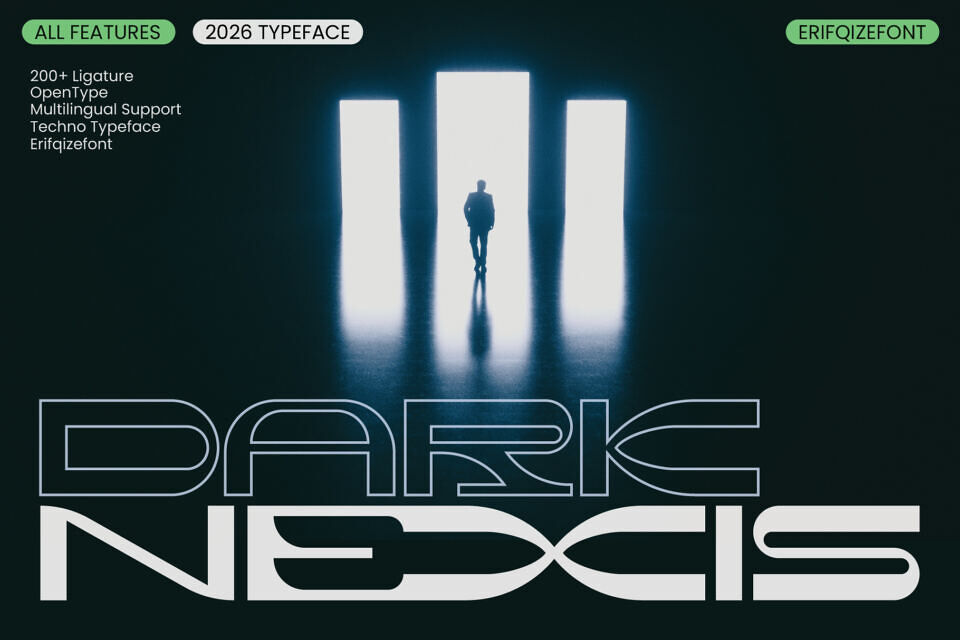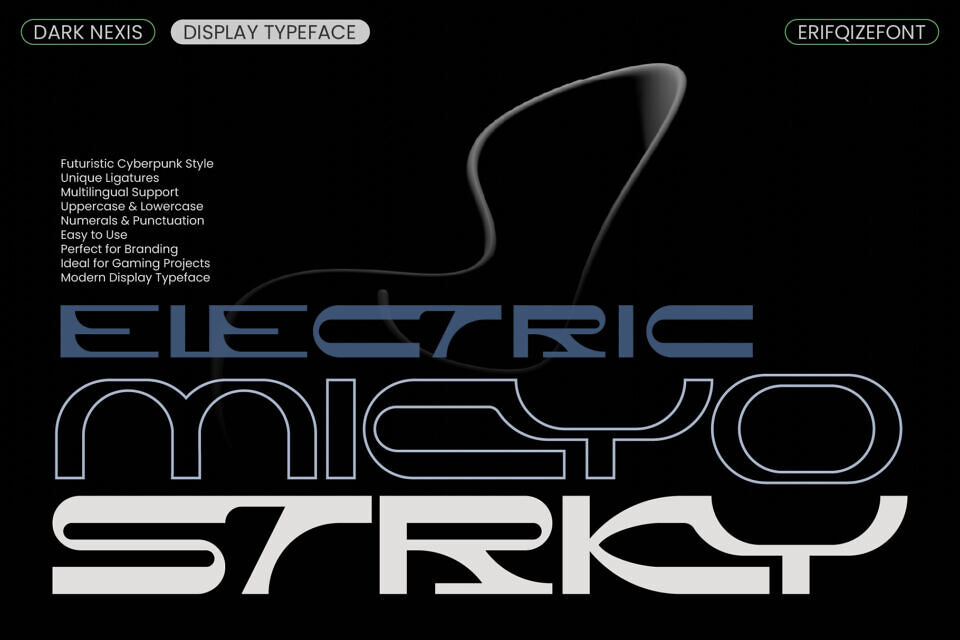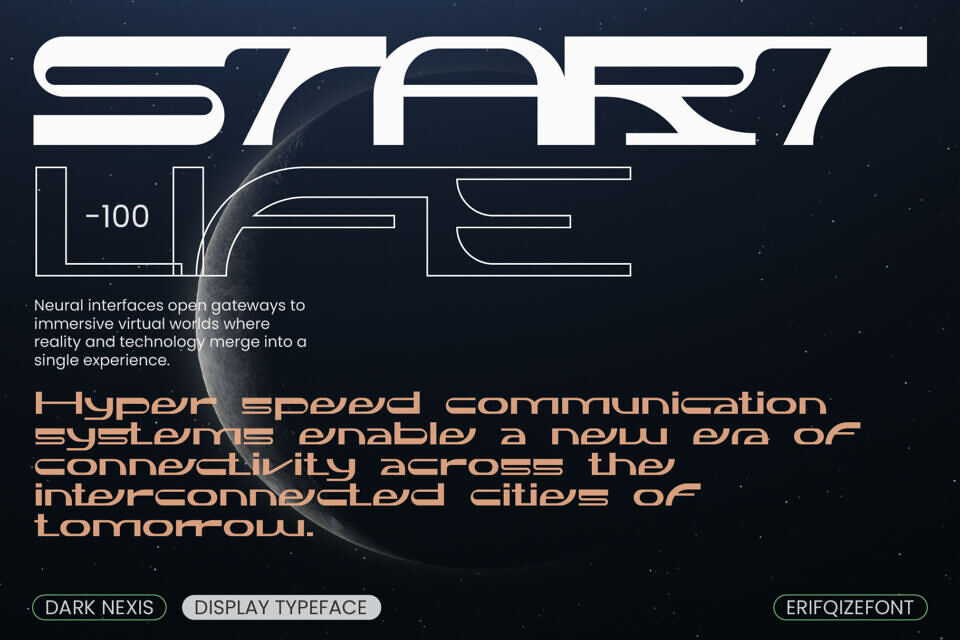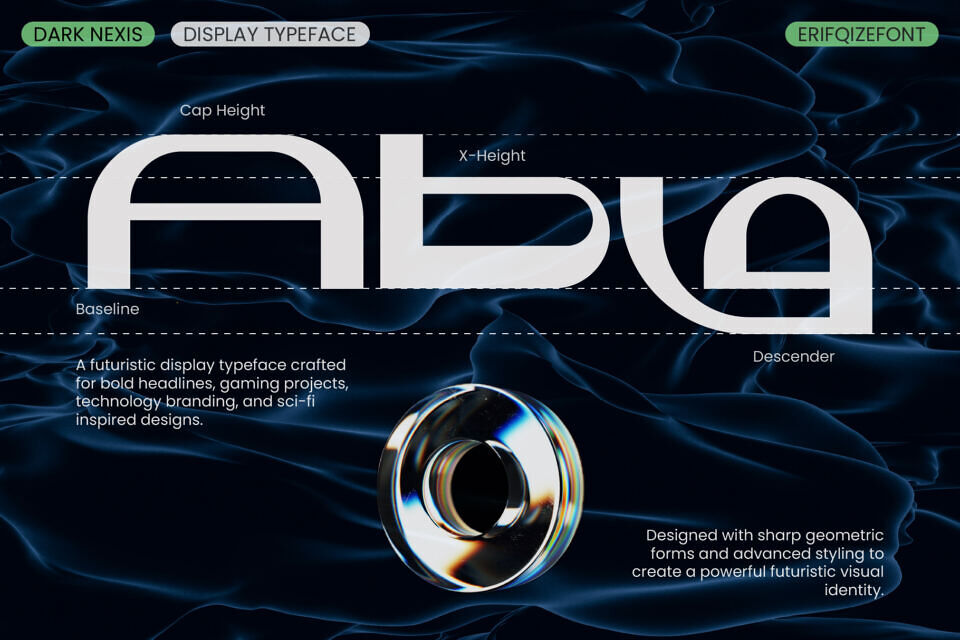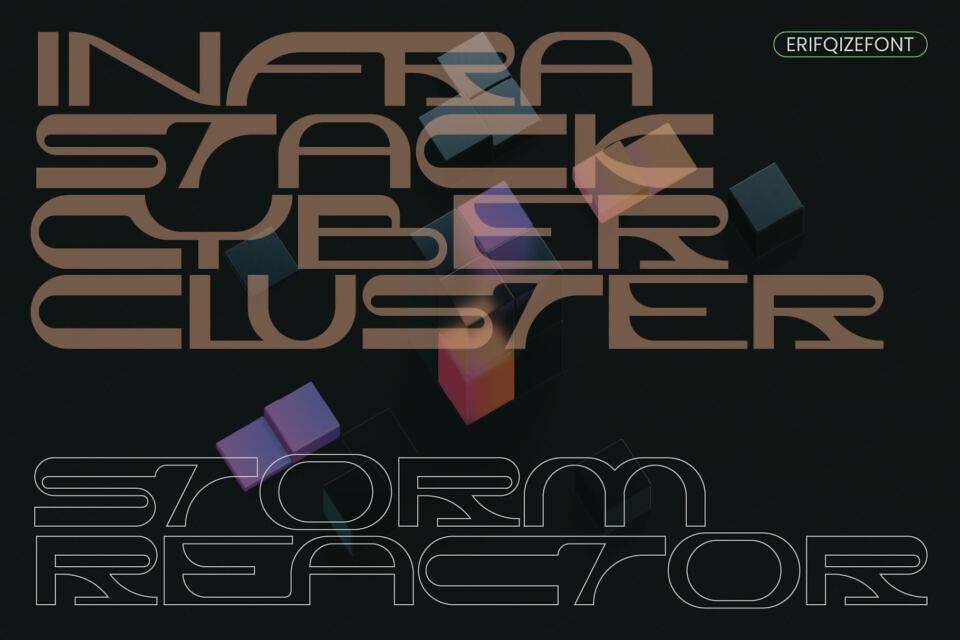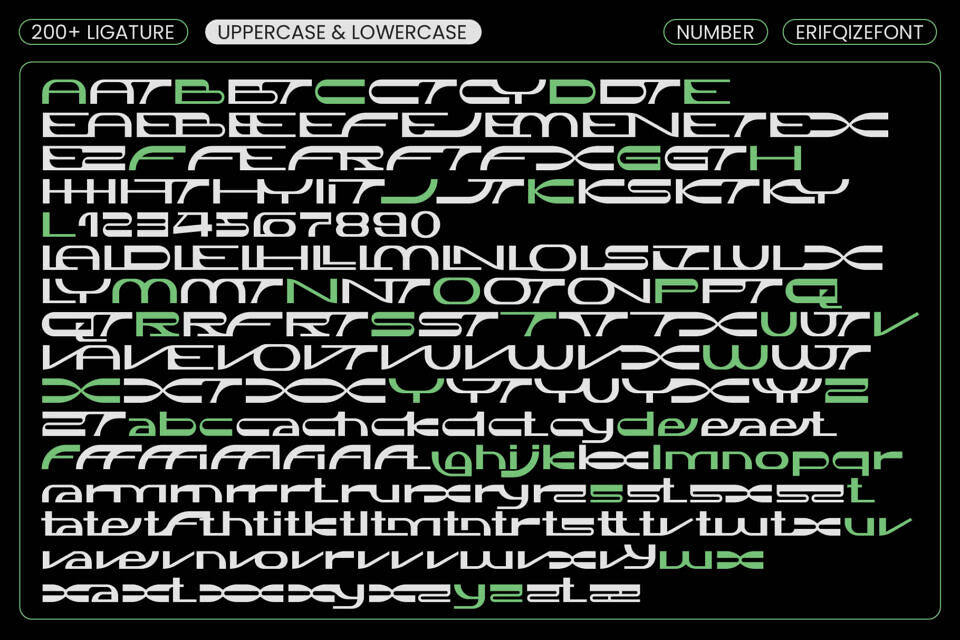
Introducing Dark Nexis, a cutting-edge font designed to push your creative boundaries and bring your visuals straight into tomorrow.
Capturing a bold aesthetic, this font seamlessly fuses cyberpunk, techno, and futuristic elements into a commanding layout, its distinct silhouette is perfectly tailored for high-impact science fiction projects, advanced tech branding, cinematic title designs, gaming interfaces, and modern street-wear merchandise.